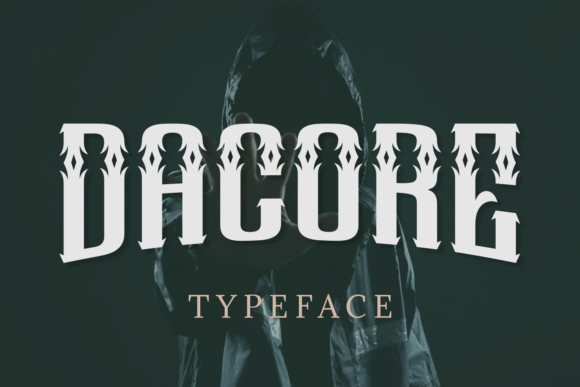
Dacore Font: A Bold Blackletter Typeface Inspired by the Old West
In the world of typography, fonts play a crucial role in conveying the tone and personality of a brand or project. Among the numerous typefaces available, the Dacore font stands out for its unique blend of traditional Gothic style and distinctive elements of Western typography. This fusion creates a rugged, bold, and adventurous typeface that is perfect for projects that aim to evoke strength, tradition, and the spirit of the Old West.
What is Dacore Font?
Dacore is a bold blackletter font that combines the classic Gothic style with the ruggedness of Western typography. The result is a typeface that exudes a sense of drama, adventure, and strength. The font’s unique design makes it an excellent choice for projects that require a bold and eye-catching typography, such as logos, titles, and headings.
Design Elements of Dacore Font
The Dacore font features several design elements that make it stand out from other typefaces. Some of its notable features include:
- Bold and Dramatic Lines: The font’s bold lines and dramatic strokes evoke a sense of strength and power, making it perfect for projects that require a rugged and adventurous feel.
- Gothic-Inspired Letterforms: The font’s letterforms are inspired by traditional Gothic typography, with intricate details and ornate flourishes that add to its dramatic effect.
- Western Typography Elements: The font incorporates distinctive elements of Western typography, such as rugged serifs and a distressed texture, which give it a unique and adventurous feel.
Usage Examples of Dacore Font
The Dacore font is versatile and can be used in a variety of projects, including:
- Logos and Branding: The font’s bold and dramatic design makes it an excellent choice for logos and branding projects that require a strong and memorable typography.
- Posters and Flyers: The font’s rugged and adventurous feel makes it perfect for posters and flyers that aim to grab attention and evoke a sense of excitement.
- Headings and Titles: The font’s bold and dramatic lines make it an excellent choice for headings and titles that require a strong and eye-catching typography.
Typographic Benefits of Dacore Font
The Dacore font offers several typographic benefits, including:
- Improved Readability: The font’s bold and dramatic design makes it easy to read, even at small sizes.
- Enhanced Visual Appeal: The font’s unique design elements and rugged texture add to its visual appeal, making it perfect for projects that require a bold and eye-catching typography.
- Flexibility: The font’s versatility makes it suitable for a wide range of projects, from logos and branding to posters and flyers.
Comparison with Other Fonts
The Dacore font can be compared to other bold and dramatic typefaces, such as:
- Traditional Gothic Fonts: While traditional Gothic fonts are elegant and sophisticated, they often lack the ruggedness and adventurous feel of the Dacore font.
- Western-Style Fonts: Western-style fonts often feature a rugged and distressed texture, but they may lack the bold and dramatic lines of the Dacore font.
Tips for Using Dacore Font
To get the most out of the Dacore font, follow these tips:
- Use it Sparingly: The font’s bold and dramatic design makes it perfect for headings and titles, but it may be overwhelming if used excessively.
- Pair it with a Simple Font: Pair the Dacore font with a simple and clean font to create a striking contrast and add visual interest to your project.
- Experiment with Colors and Textures: The font’s rugged texture and bold lines make it perfect for experimenting with different colors and textures to add depth and visual interest to your project.
In conclusion, the Dacore font is a bold and dramatic typeface that blends the traditional Gothic style with distinctive elements of Western typography. Its unique design makes it perfect for projects that aim to evoke strength, tradition, and the spirit of the Old West. With its versatility, readability, and visual appeal, the Dacore font is an excellent choice for a wide range of projects, from logos and branding to posters and flyers.